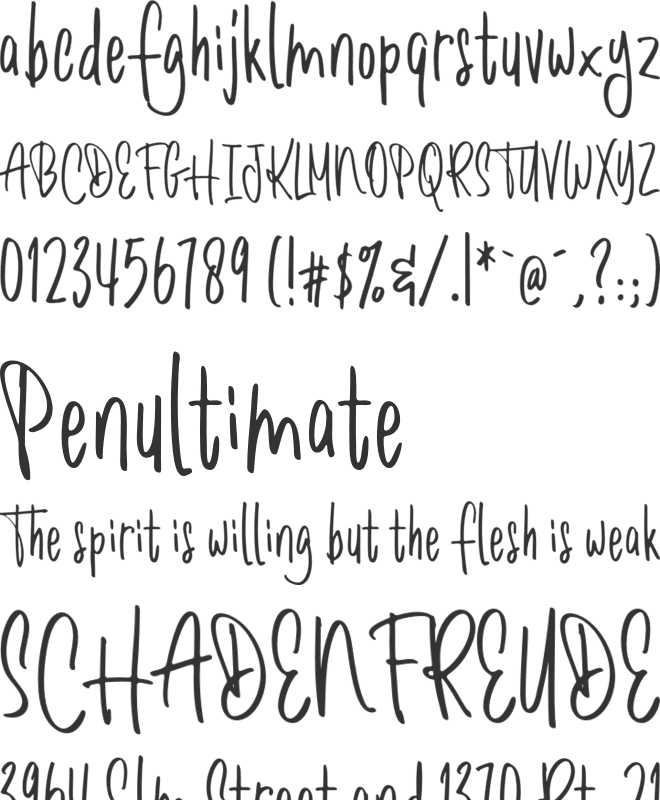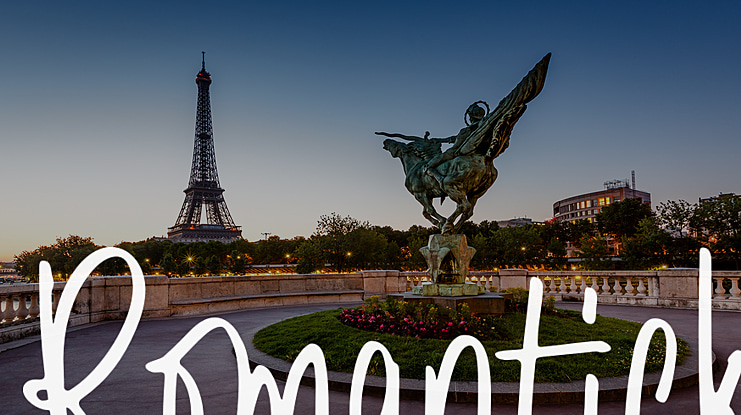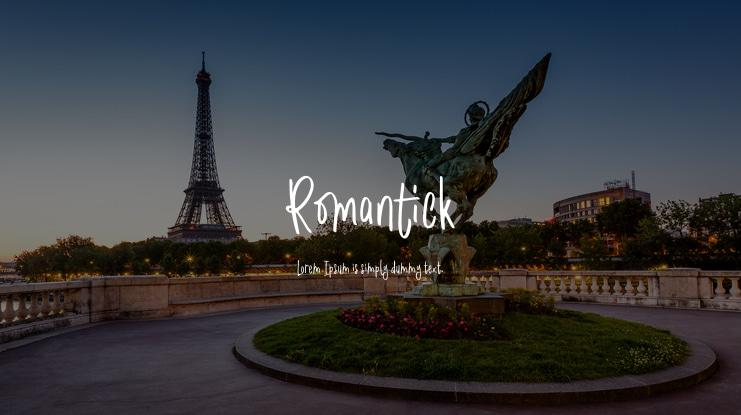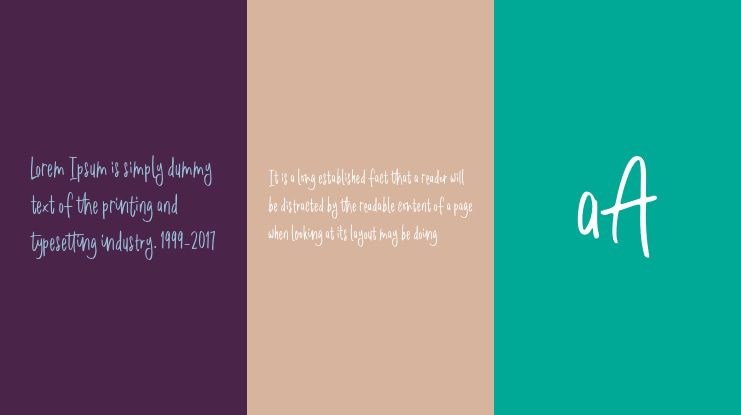
Romantick Font
Romantick is a semi-script font based on handwriting with a thin brush pen. It looks simple with a casual style and also contains some ligature to make your design feel more personal. Even additional characters in stylistic alternates can be an alternative in further exploration.
Romantick is perfect for the design of wedding invitations, quotes, logotypes, packaging etc. And most importantly, you can use Romantick font for free both for personal and commercial purposes.